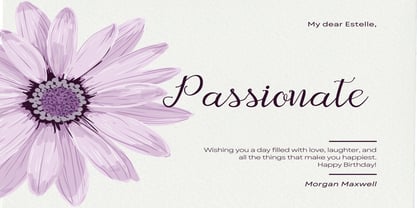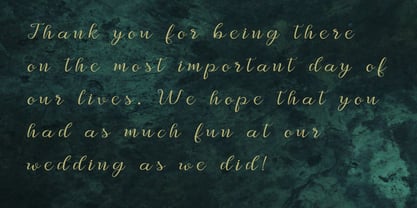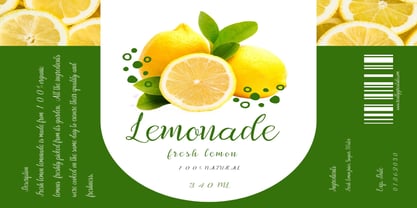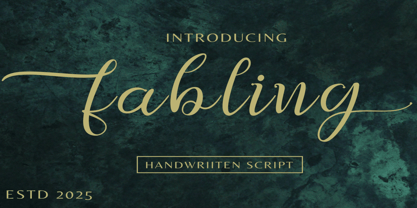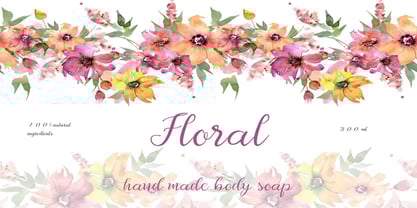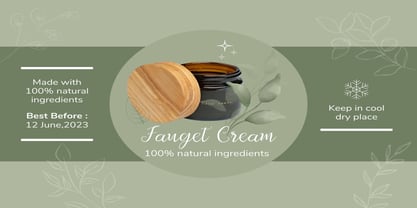
Fabling
by Dream Font
The Fabling Font Family was designed by Naghi Naghashian and published by Dream Font. Fabling contains 1 styles.
Fabling is a magical handwritten font carefully created with a touch of elegance. This is a beautiful combination of timeless elegance and authentic calligraphy. It features an incredibly classic style, while still keeping a friendly feel.
Whether you’re looking for fonts for Instagram or calligraphy scripts for DIY projects, Fabling will turn any creative idea into a true piece of art!
Designers: Naghi Naghashian
Publisher: Dream Font
Foundry: Dream Font
Design Owner: Dream Font